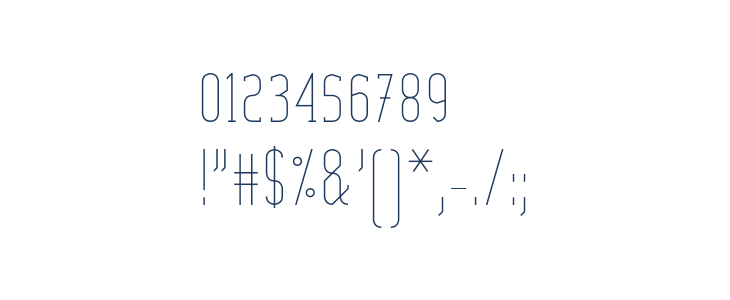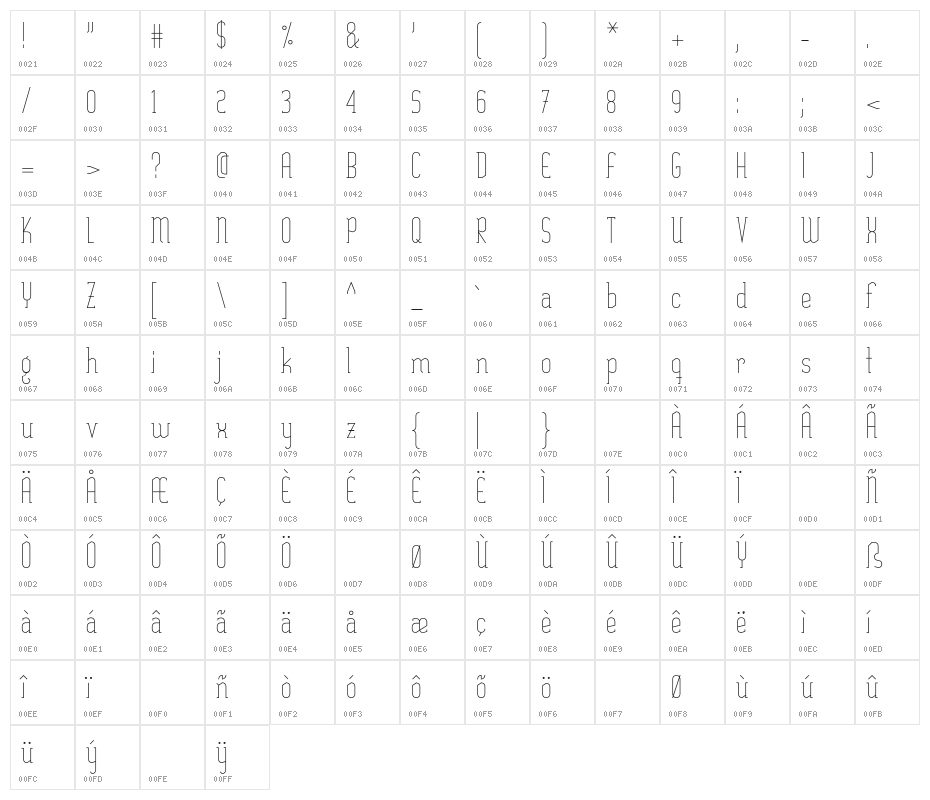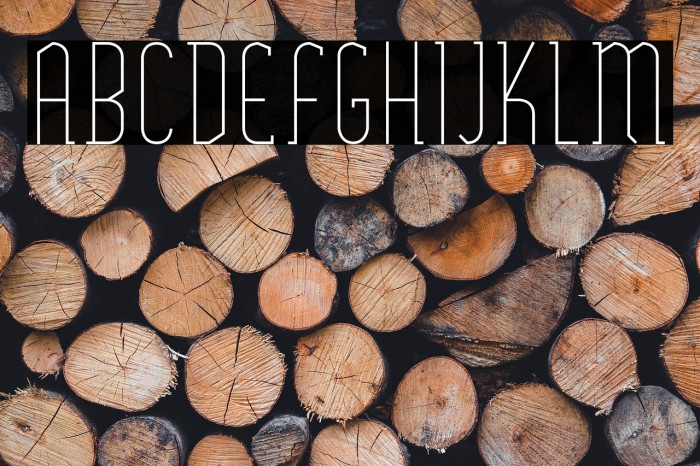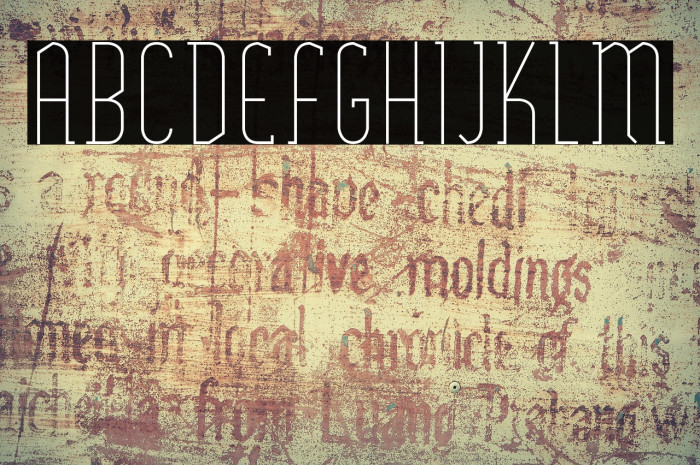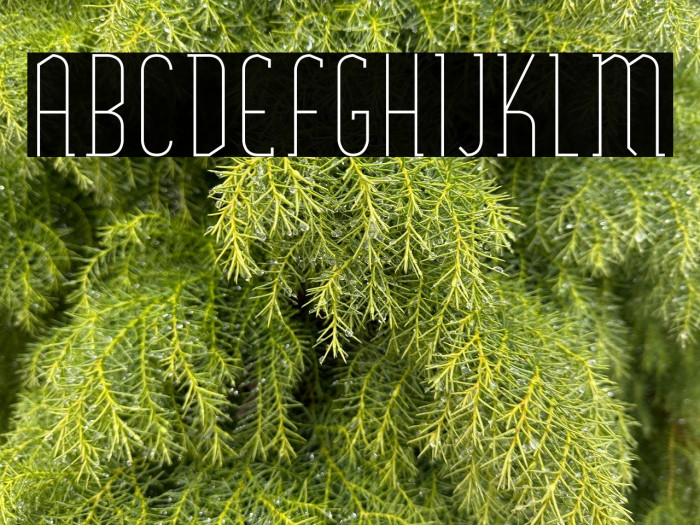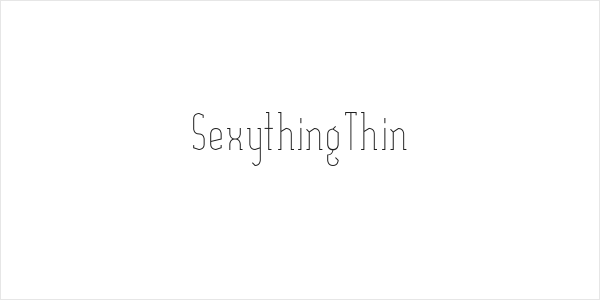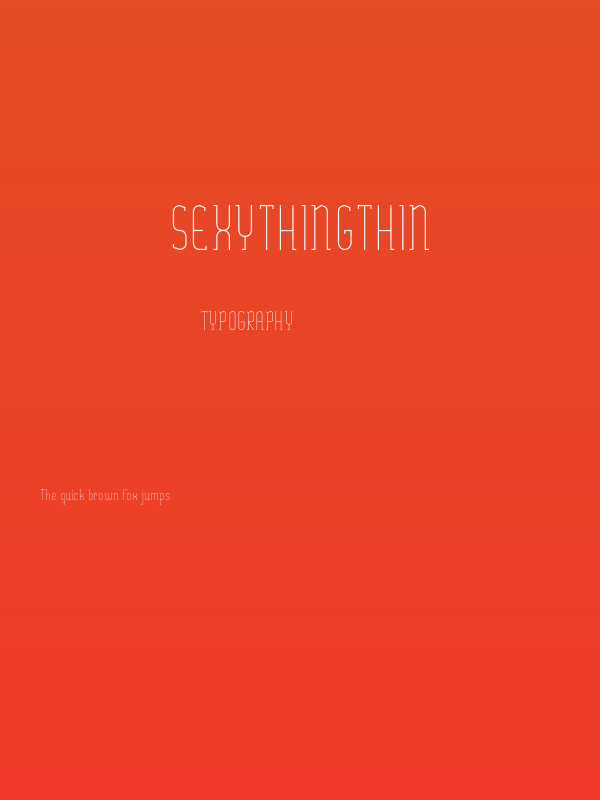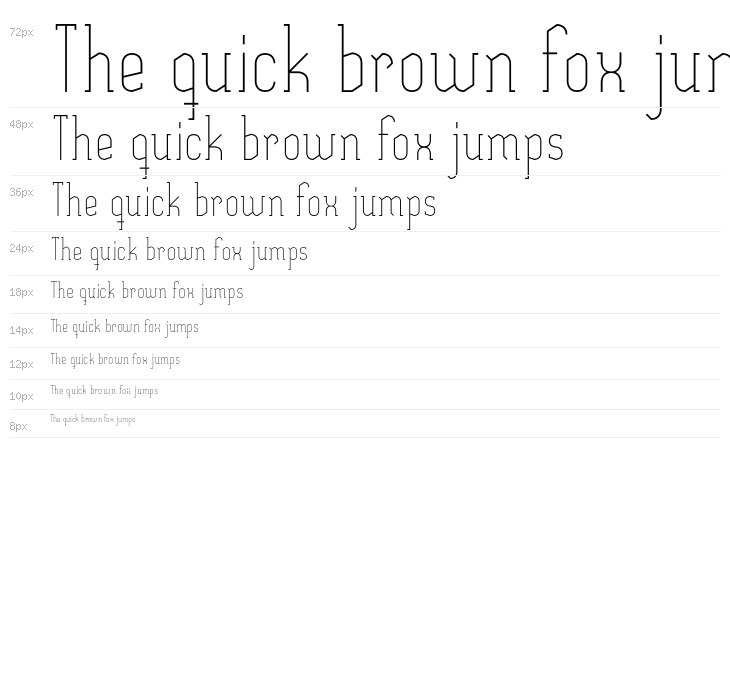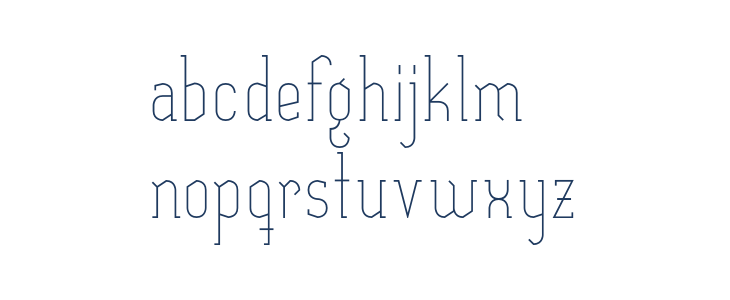
SexythingThin Font
SexythingThin Description
This font features a unique and modern design with elongated, thin strokes that give it a sleek and sophisticated appearance. The characters are tall and narrow, with a geometric structure that adds a contemporary feel. The uppercase letters are particularly striking, with sharp angles and clean lines, while the lowercase letters maintain a consistent style with a slightly softer touch. The numerals and special characters are designed to complement the overall aesthetic, making this font versatile for various applications.